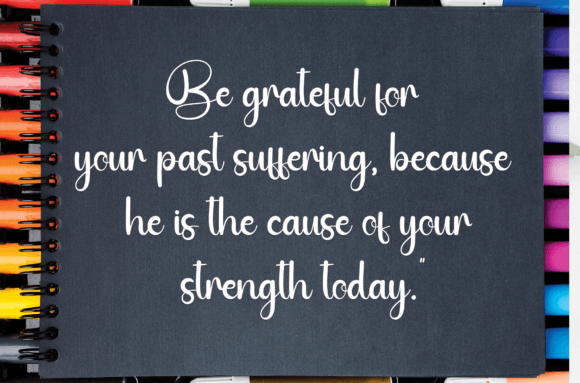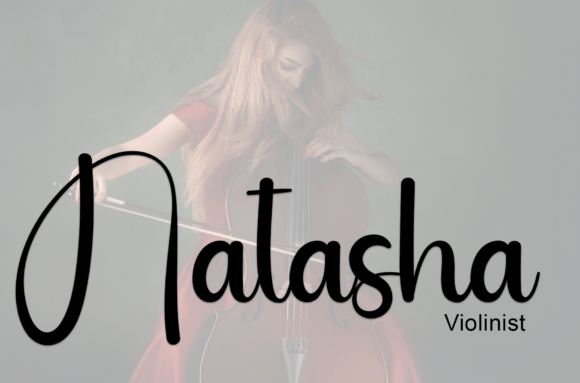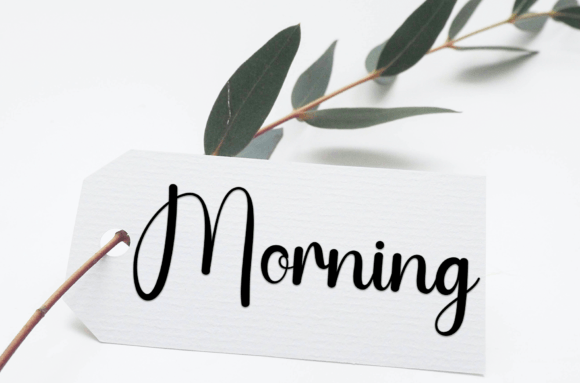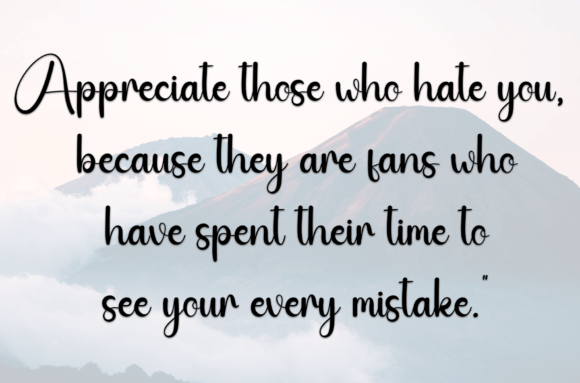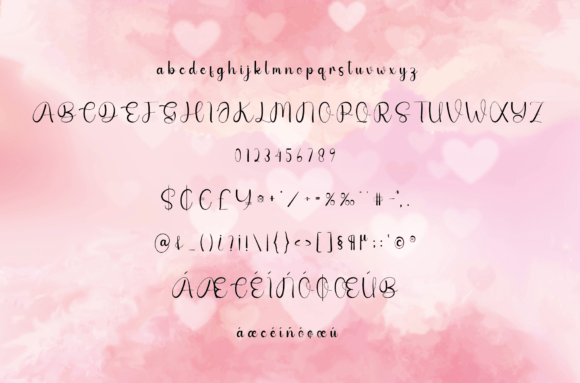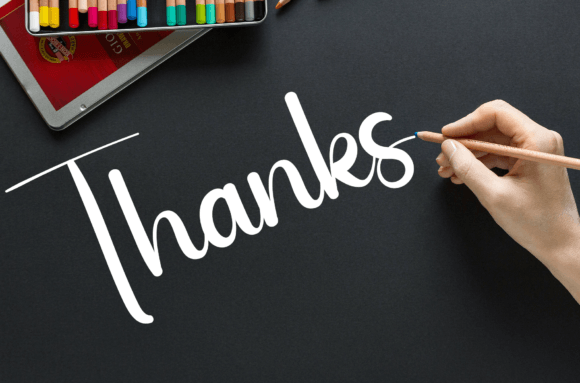
Beautiful Valentine Font
About Beautiful Valentine Font
Beautiful Valentine is a sweet handwritten font designed to bring warmth and love into any design. Each letter has a friendly and relaxed feel that makes your projects look charming and approachable. Whether you are creating wedding invitations or personal greeting cards, this font will help you share heartfelt emotions in a beautiful way.
Beautiful Valentine is crafted to look playful but still elegant. It blends simplicity with a touch of whimsy, making it a perfect choice for designers who want their text to feel genuine and personal. From logos to digital posts, it adapts easily to any purpose.
Perfect for Romantic Projects
Beautiful Valentine shines in romantic settings. When you design wedding invitations, save-the-date cards, or anniversary announcements, this font adds a soft and caring feel. Its smooth curves and gentle strokes reflect love and joy.
If you need to create bridal shower decor, table numbers, or thank-you notes, Beautiful Valentine will deliver a cohesive, lovely style across every piece.
Versatile for Any Occasion
While it’s perfect for weddings, this font is also a wonderful choice for other creative projects, such as:
• Greeting Cards: Birthdays, holidays, and special moments feel warmer with handwritten text.
• Social Media Graphics: Share quotes, promotions, or personal messages that look friendly and inviting.
• Branding: Use Beautiful Valentine for boutique logos, product labels, and packaging that need a soft, approachable vibe.
• Crafts and DIY Projects: Make scrapbooks, wall art, or handmade gifts feel extra special.
• Invitations and Stationery: From baby showers to family gatherings, the relaxed style fits any celebration.
Why Designers Love Beautiful Valentine
Here’s what makes this font a favorite:
• Friendly Personality: Each letter feels warm and welcoming.
• Playful Elegance: It balances casual charm with a polished look.
• Highly Readable: Even with its handwritten style, it stays clear and easy to read.
• Adaptable: Use it for both print and digital projects.
• Timeless Appeal: It looks fresh today and will still feel relevant in years to come.
Tips for Stunning Designs
To get the best results, try these ideas:
1. Pair with Simple Fonts: Combine Beautiful Valentine with clean sans-serif fonts for balance.
2. Use Light Backgrounds: Soft colors help the script stand out.
3. Play with Size: Large headlines highlight its charming curves.
4. Add Illustrations: Hearts, flowers, or hand-drawn elements enhance the romantic vibe.
5. Experiment with Colors: Soft pastels and warm tones work beautifully.